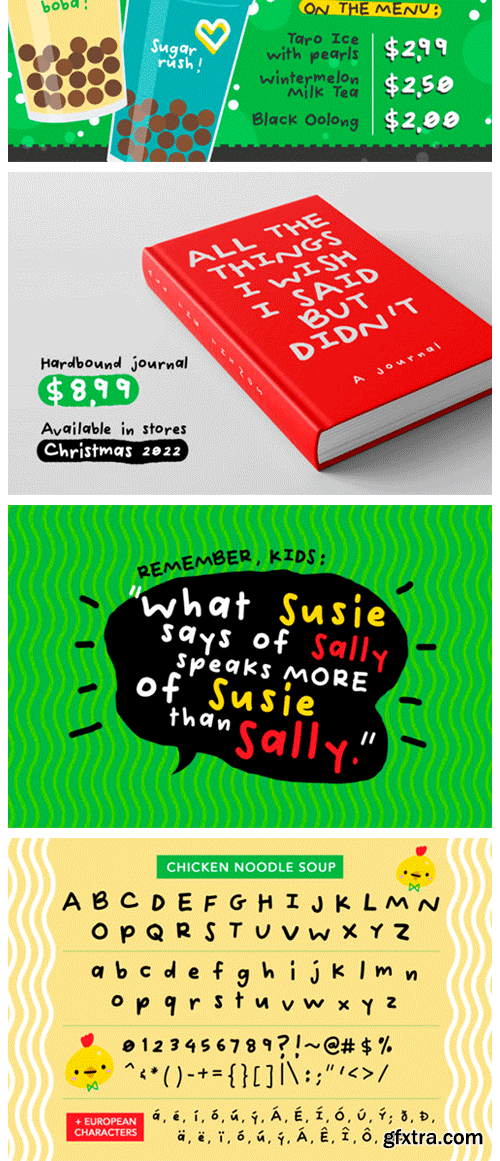
Chicken Noodle Soup Font
Super charming and super cute, Chicken Noodle Soup is the perfect handwritten font that gives off a casual, happy-go-lucky vibe.